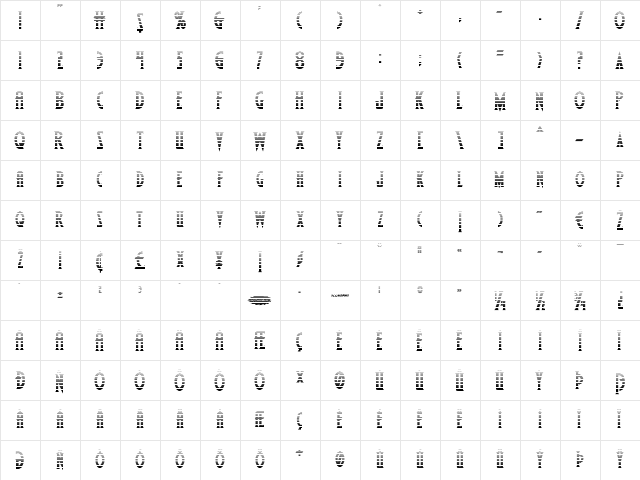
Wolf's Bane II Gradient Regular
Design Context for Wolf's Bane II Gradient Typeface
Wolf's Bane II Gradient is a composed and adaptable typeface that performs quietly and consistently across a wide range of design contexts.